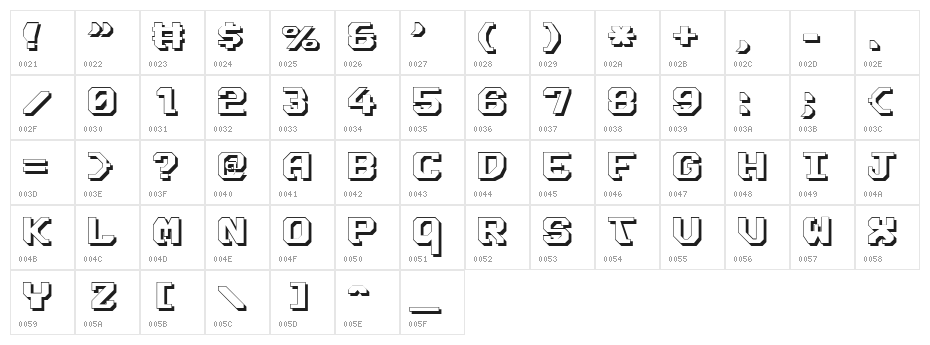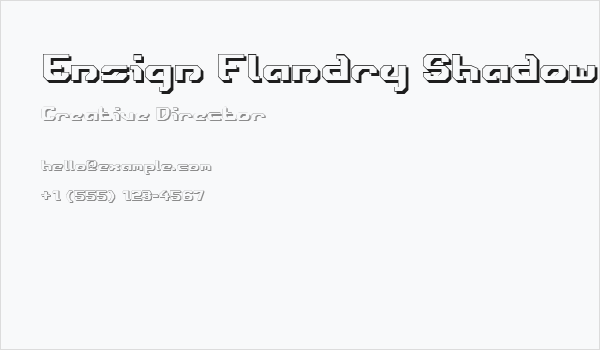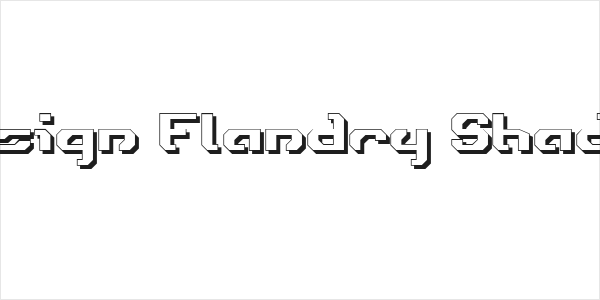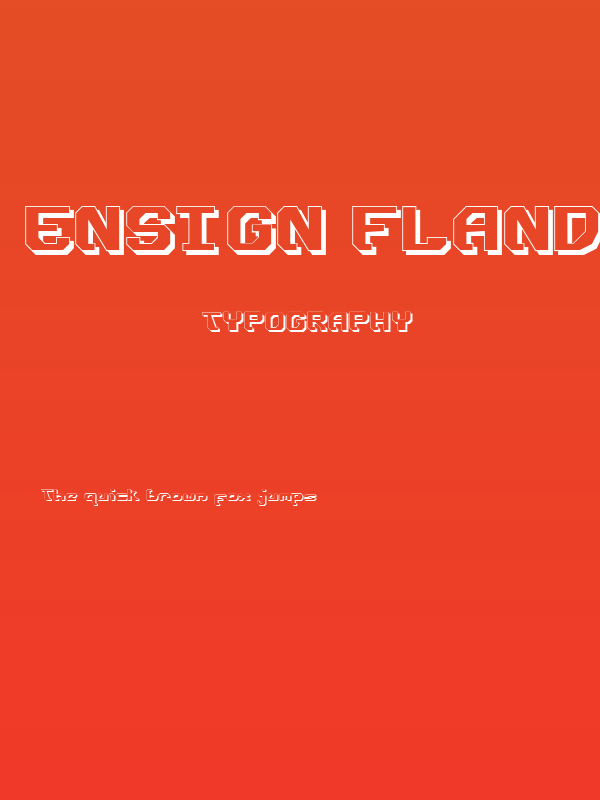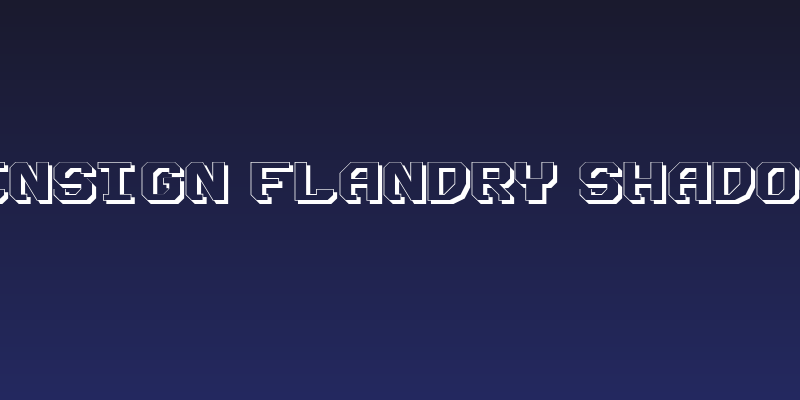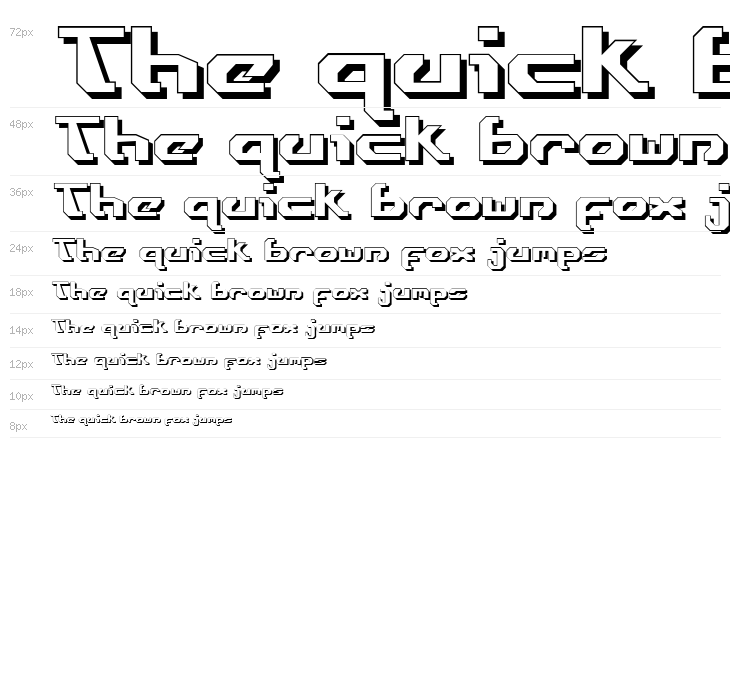
Ensign Flandry Shadow Font
Ensign Flandry Shadow Description
This font features a bold, three-dimensional shadow effect that gives it a striking and dynamic appearance. The characters are blocky and geometric, with sharp angles and clean lines that create a sense of depth and dimension. The uppercase and lowercase letters maintain a consistent style, with the shadow effect adding a layer of complexity and visual interest. The numerals and special characters are designed with the same attention to detail, ensuring a cohesive look across all elements. This font's unique style makes it ideal for projects that require a bold and eye-catching typeface.
| Proposed Projects | Ideal for posters, logos, video game graphics, and any design needing a bold, eye-catching typeface. |